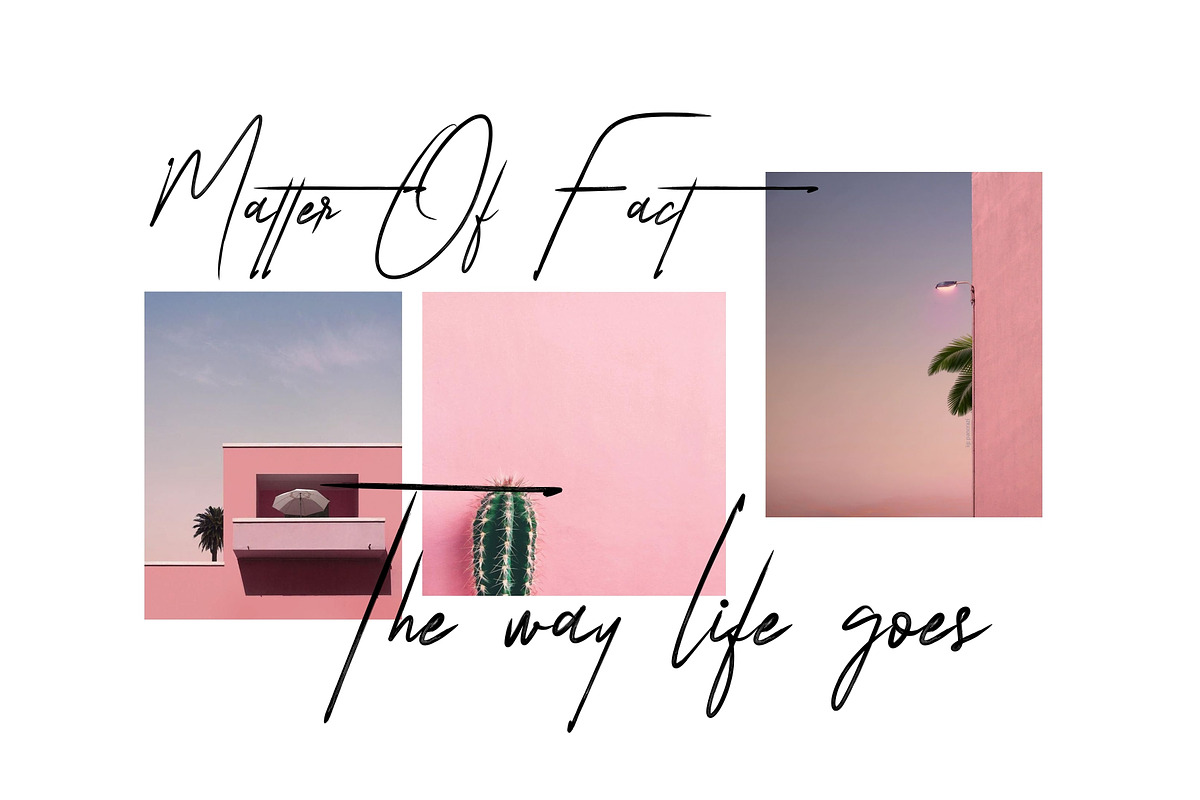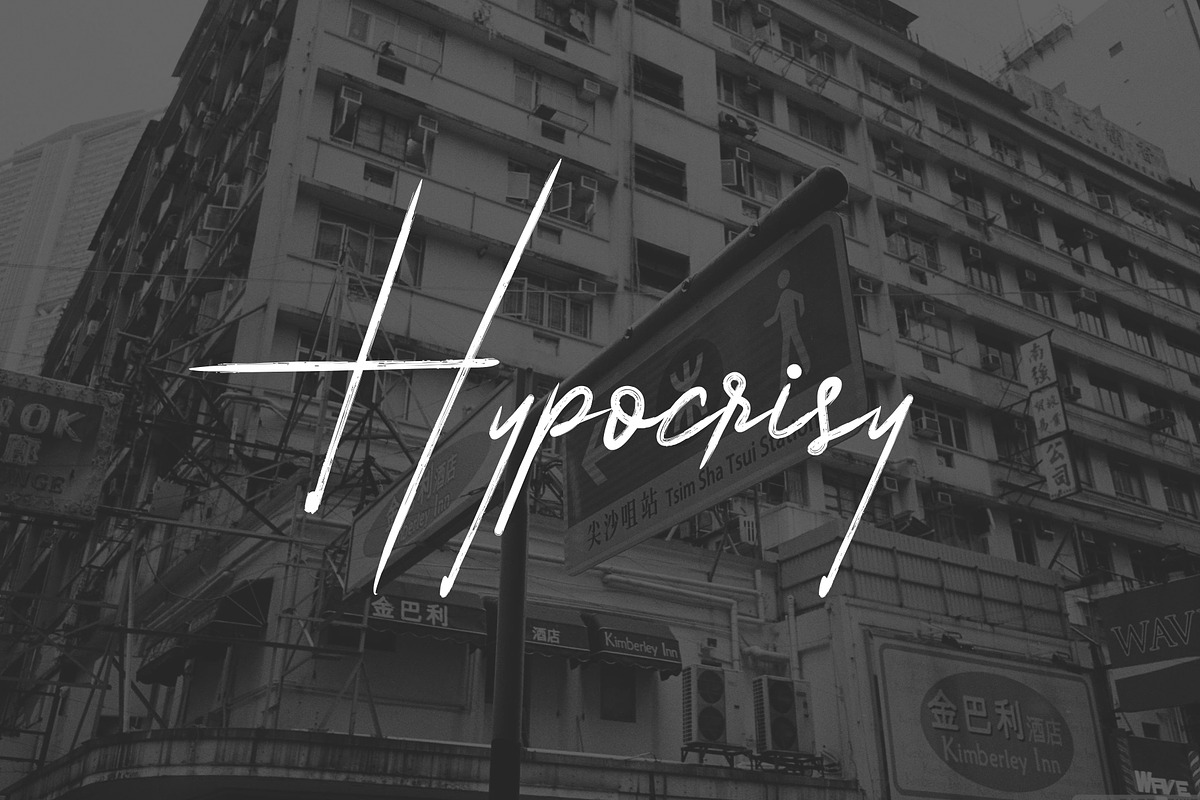
Algorithm Brush Font
Give your designs an authentic handcrafted feel. “Algorithm Brush Font” is perfectly suited to stationery, busuness card, logos and much more
Algorithm Brush Font by Maxim apperian fits naturally into Branding, posters, packaging, typography.